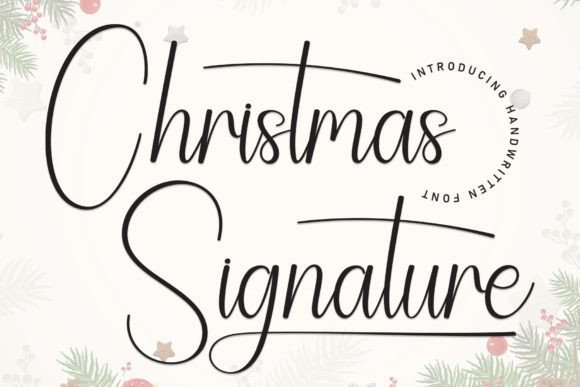
Introducing Christmas Signature Font, a delightful and charming addition to your font collection! Crafted with love by the talented designer Strongkeng Old, this script font is sure to captivate your imagination and add a playful touch to your creative projects.
With its sweet and friendly handwritten style, Christmas Signature Font is the perfect choice for those seeking to infuse a dash of whimsy and joy into their design endeavors. Whether you're creating wedding invitations, greeting cards, or any other project that calls for a fun and lighthearted vibe, this font will bring your vision to life.
Imagine the smiles on the faces of your loved ones when they receive a wedding invitation adorned with this enchanting font. Its elegant yet playful strokes will instantly set the tone for a joyous celebration, leaving a lasting impression on everyone who lays eyes upon it.
But the magic of Christmas Signature Font doesn't stop there. Its versatility knows no bounds, making it an ideal companion for a wide array of design projects. From branding materials to social media graphics, this font effortlessly adapts to any context. Its ability to convey both elegance and playfulness makes it an invaluable asset for those seeking to create a memorable and impactful visual experience.
This font is not just visually appealing, it also boasts a wealth of practical features. With its extensive character set, including alternates and ligatures, Christmas Signature Font offers endless possibilities for customization. Let your creativity shine as you experiment with different letter combinations and create truly unique designs that reflect your personal style.
Embrace the magic of Christmas Signature Font and unlock a world of creative possibilities. Experience the joy of crafting visually stunning designs that leave a lasting impression. Whether you're a professional designer or an enthusiastic amateur, this font will elevate your creations to new heights.